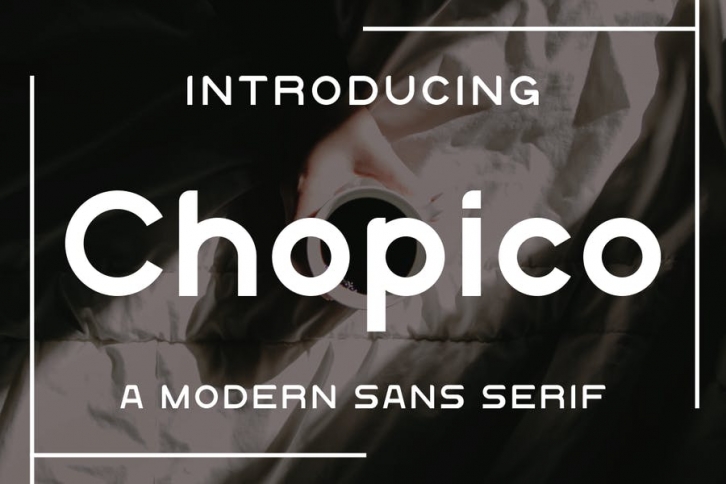
Introducing our new product Chopico Font - Modern Font
Chopico Font** - Modern Font is a bold and authentic display font. The font is suitable for any branding project like logo, t-shirt printing, Product and many more. outstanding in a wide range of contexts.